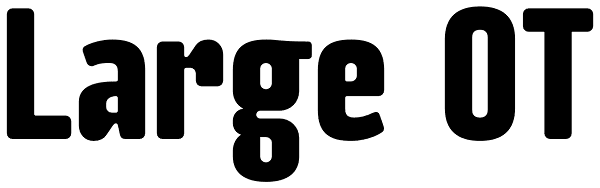
Large OT
First designed in 1999 Large now becomes LargeOT and it's available in Regular, Extra and Italic. Includes plenty of OpenType features, like SmallCaps, Alternates, Ligatures and Swashes.